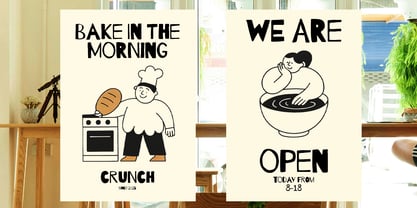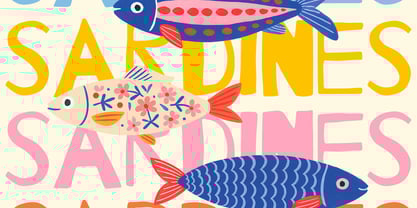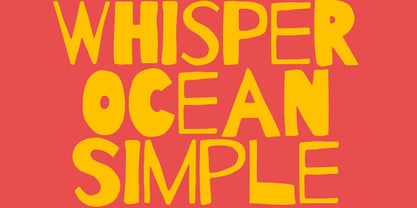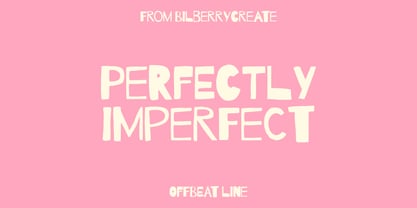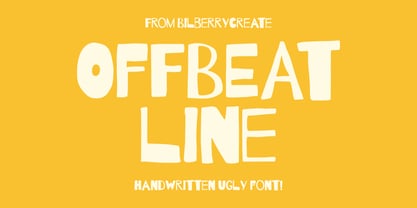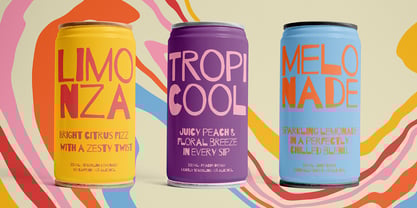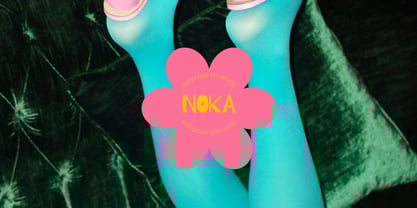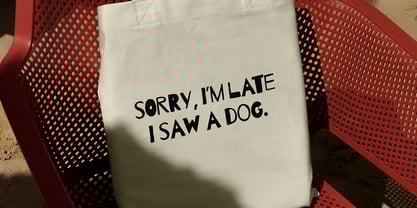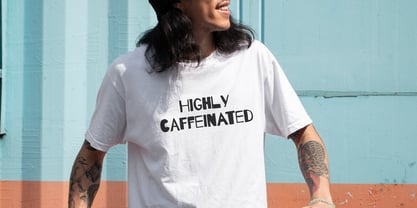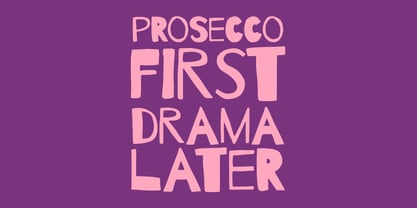
Offbeat line
by Bilberry Create
The Offbeat line Font Family was designed by Daria Cherniackova and published by Bilberry Create. Offbeat line contains 1 styles. More about this family
OFFBEAT LINE — UGLY SANS FONT! This font doesn’t try to be pretty — and that’s exactly the point. OFFBEAT LINE is a quirky, hand-drawn sans serif with awkward curves, dancing baselines, and letters that just can’t sit still. Perfect for loud posters, rebellious branding, indie zines, or anything that needs a bit of beautiful imperfection.
• All caps
• Multilingual support
• Designed to stand out (even when it shouldn’t) Let your words misbehave — in style.